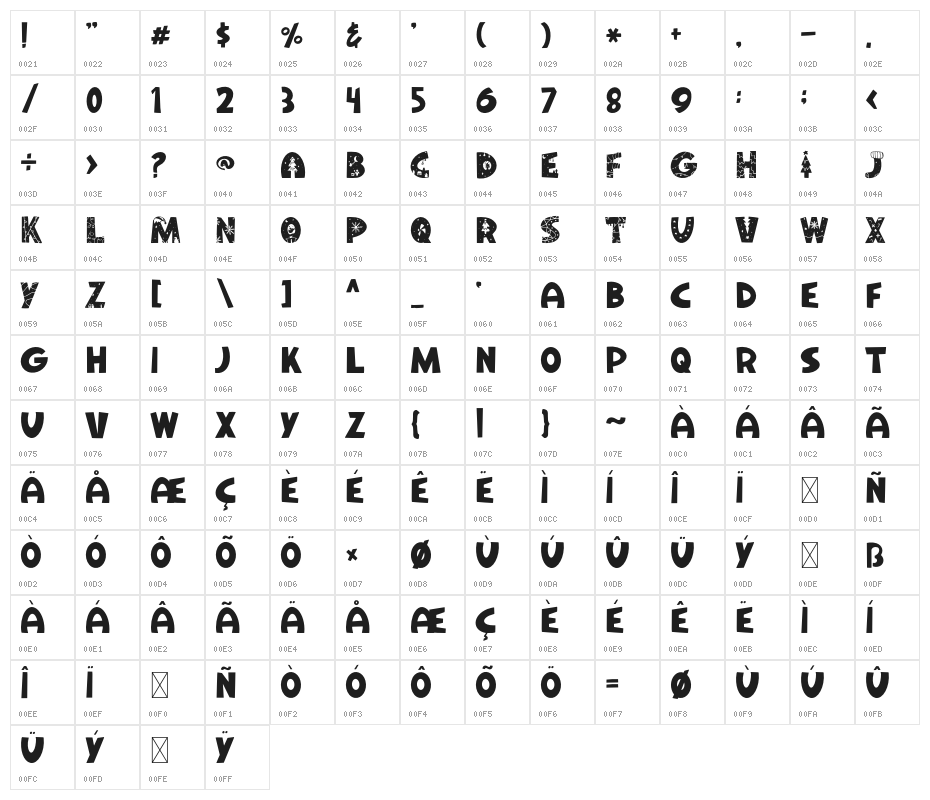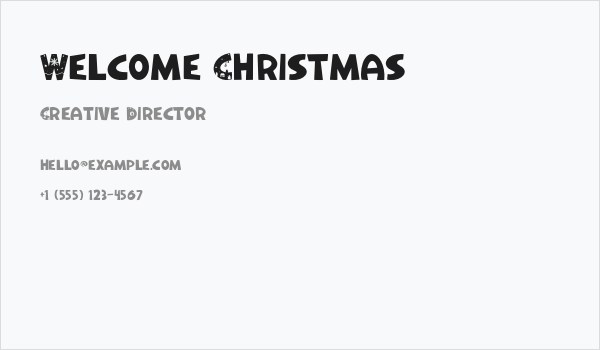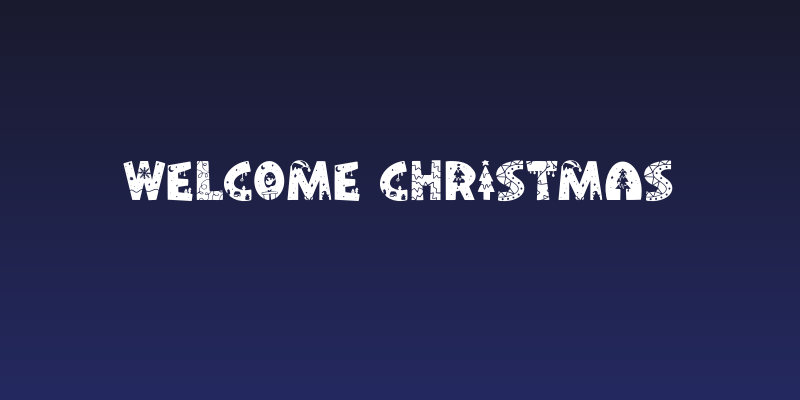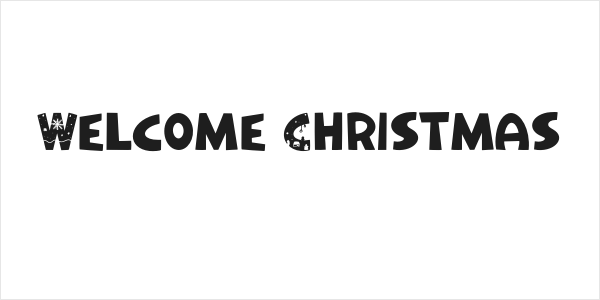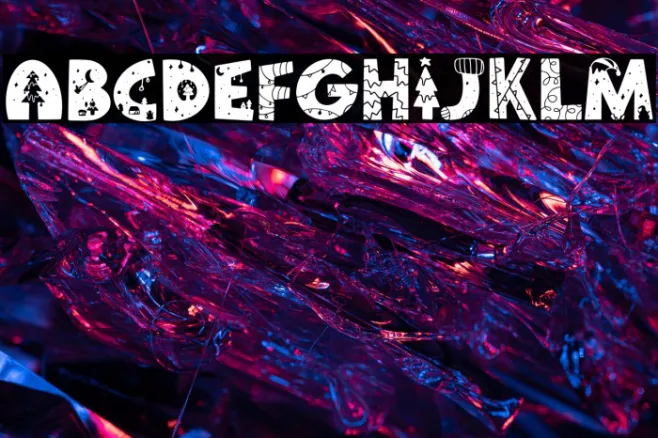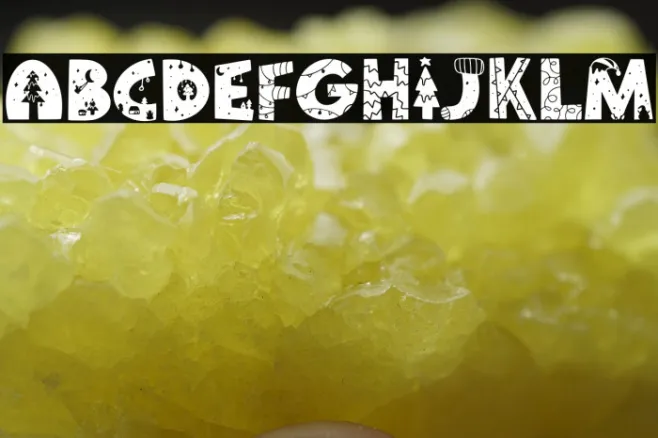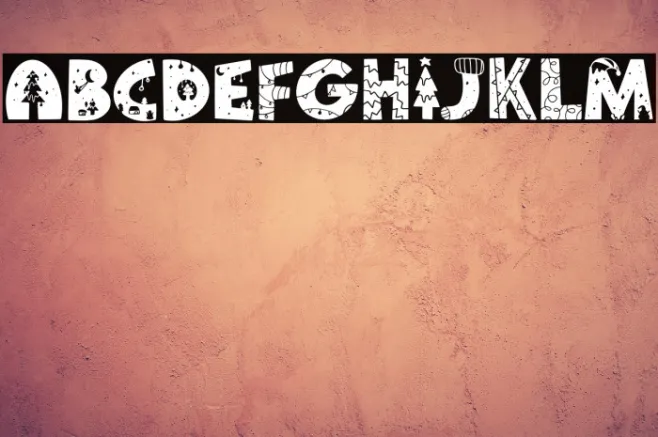
Welcome Christmas Font
Welcome Christmas Description
This font features a playful and festive design, incorporating Christmas-themed elements such as snowflakes, trees, and ornaments within the bold, uppercase letters. The decorative style is eye-catching and perfect for holiday-themed projects. The lowercase letters maintain a bold and rounded appearance, complementing the uppercase design. The numerals and special characters are consistent with the bold and playful aesthetic, making it suitable for a variety of creative uses.
| Overall Style | Festive, Playful, Decorative |
| Use Case | Headlines, Posters, Invitations |
| Proposed Projects | Ideal for holiday cards, festive posters, Christmas party invitations, and seasonal branding. |